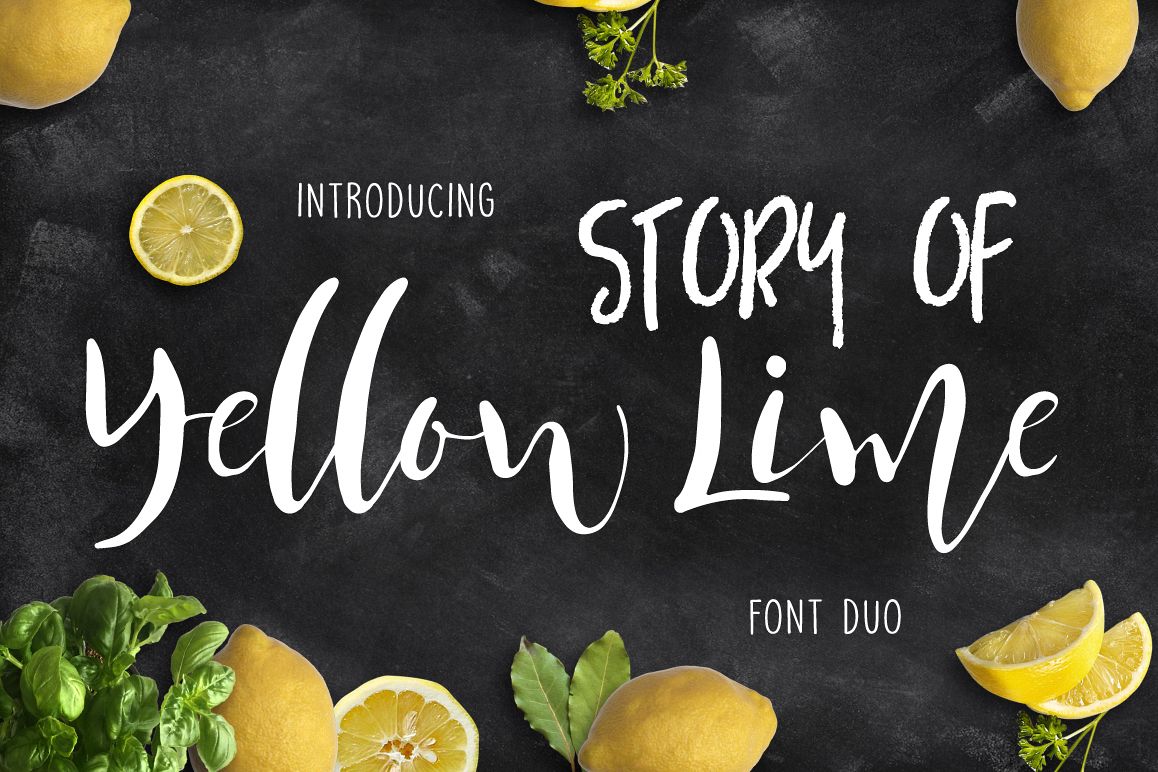
Check out our fun and happy new font duo!! They work so well together, they could be the perfect design crime-fighting duo! Saving you from boring, regular designs daily :) Enjoy! (Combine the upper and lowercase for the duo effect).What's Included: